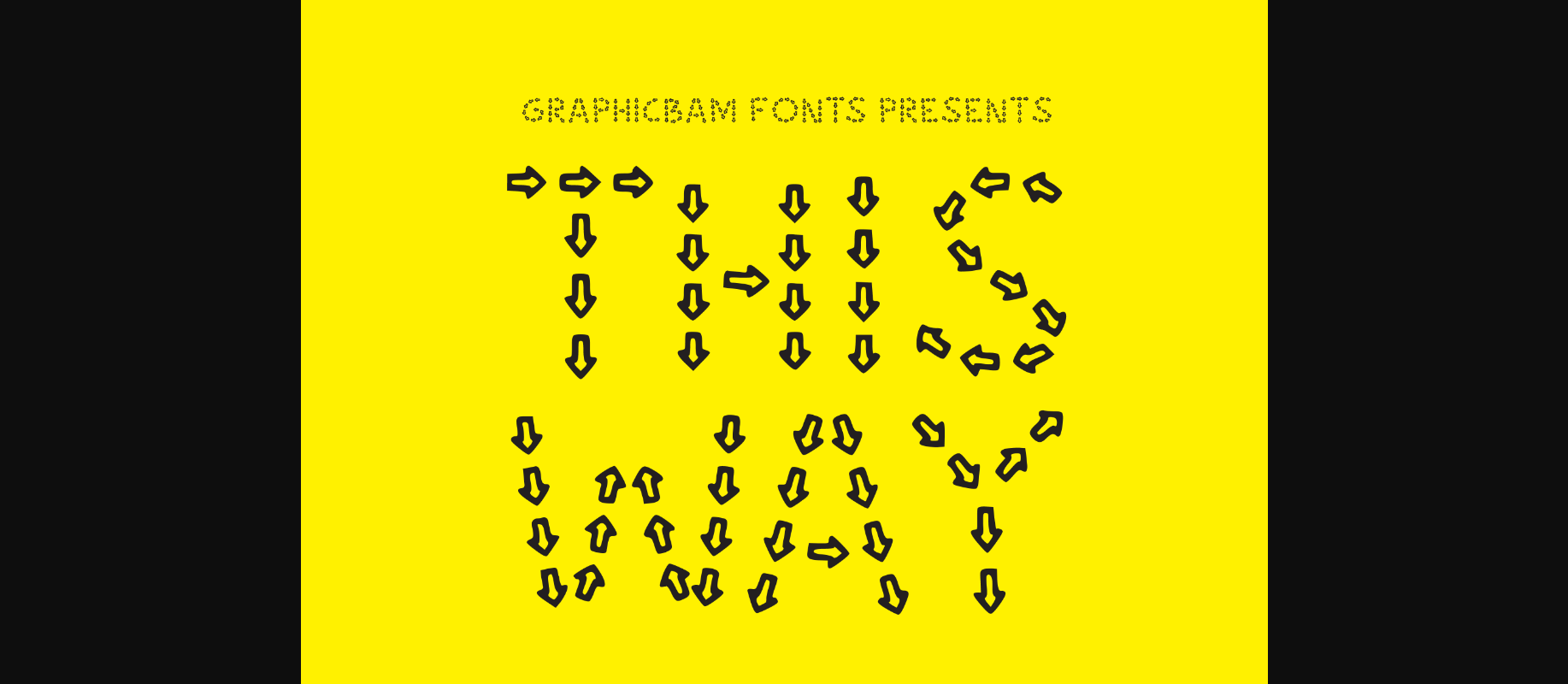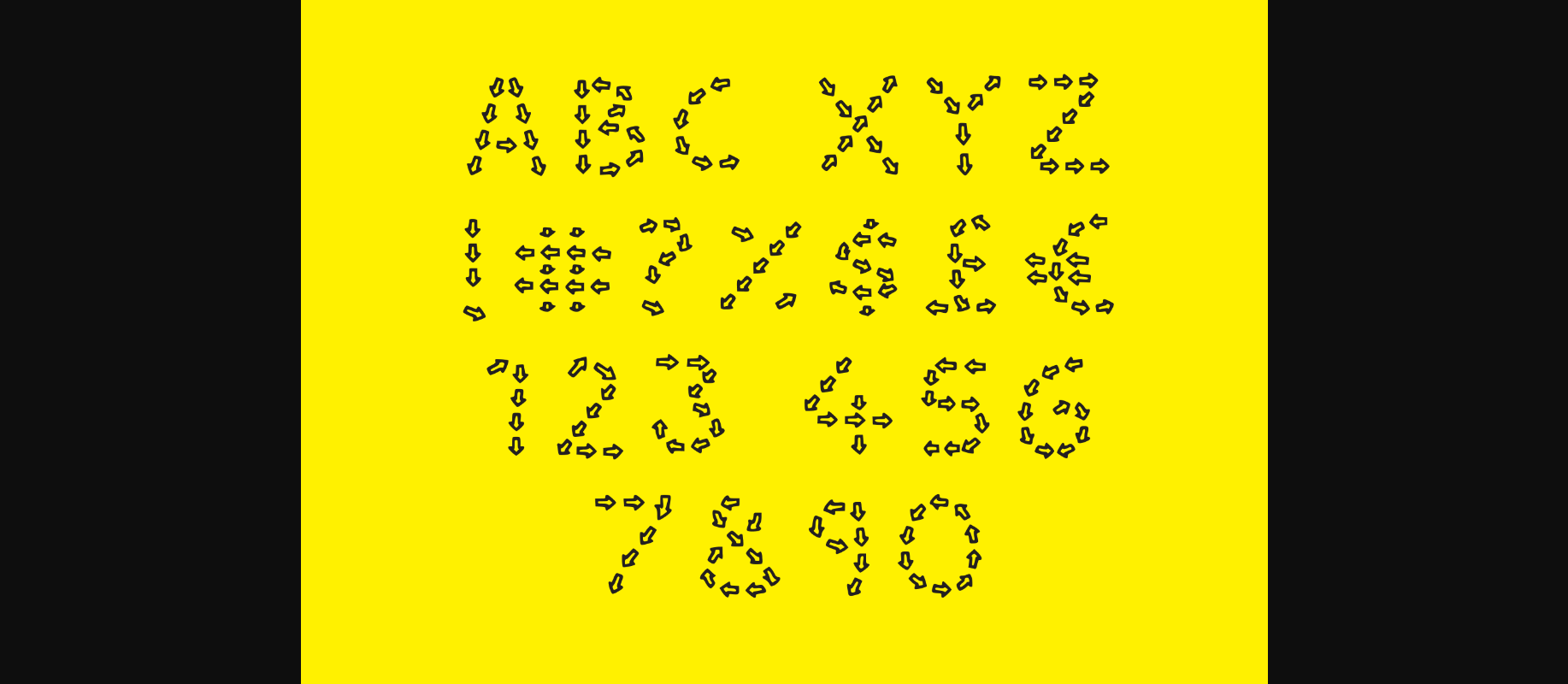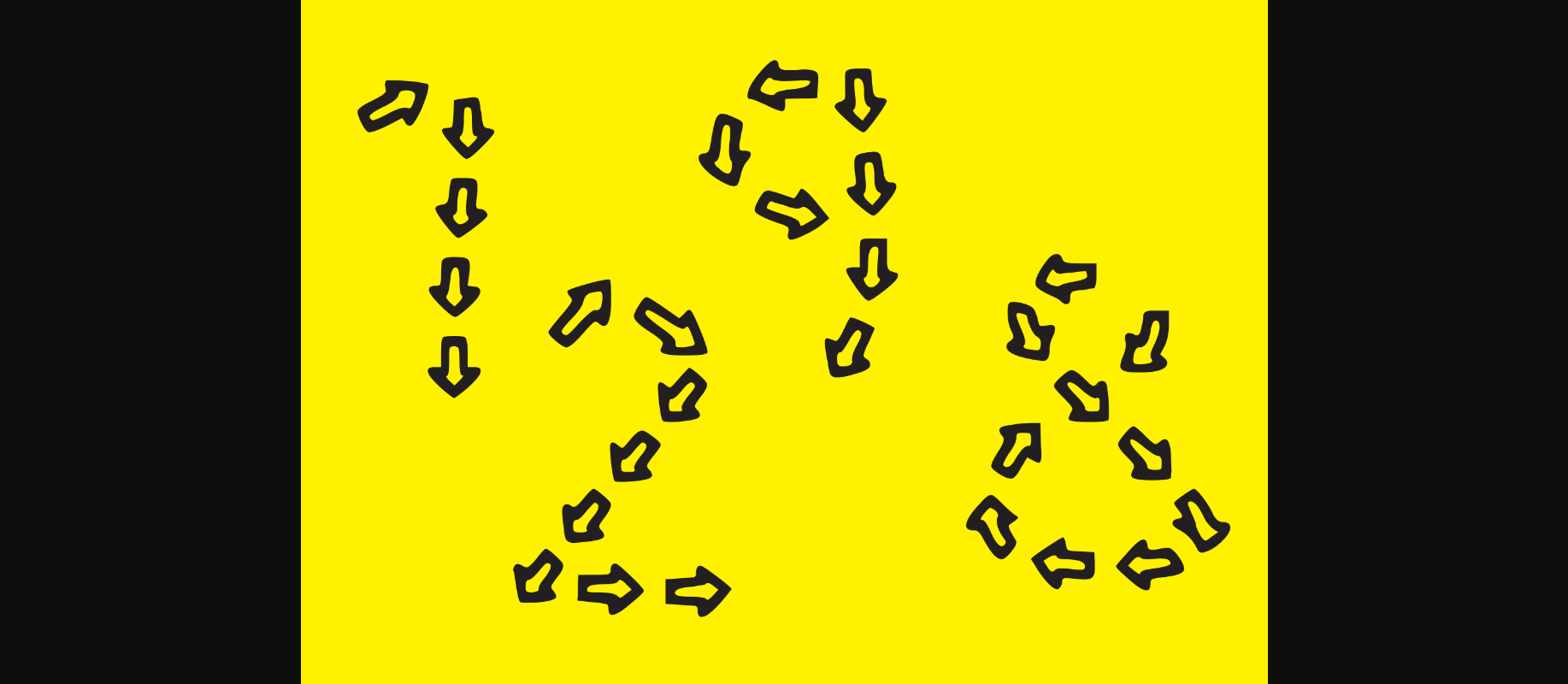
About This Way Font
This Way is a fun and incredibly unique decorative font, featuring characters made entirely out of arrows to help you on your way. Add a playful touch to your designs with this cool font!